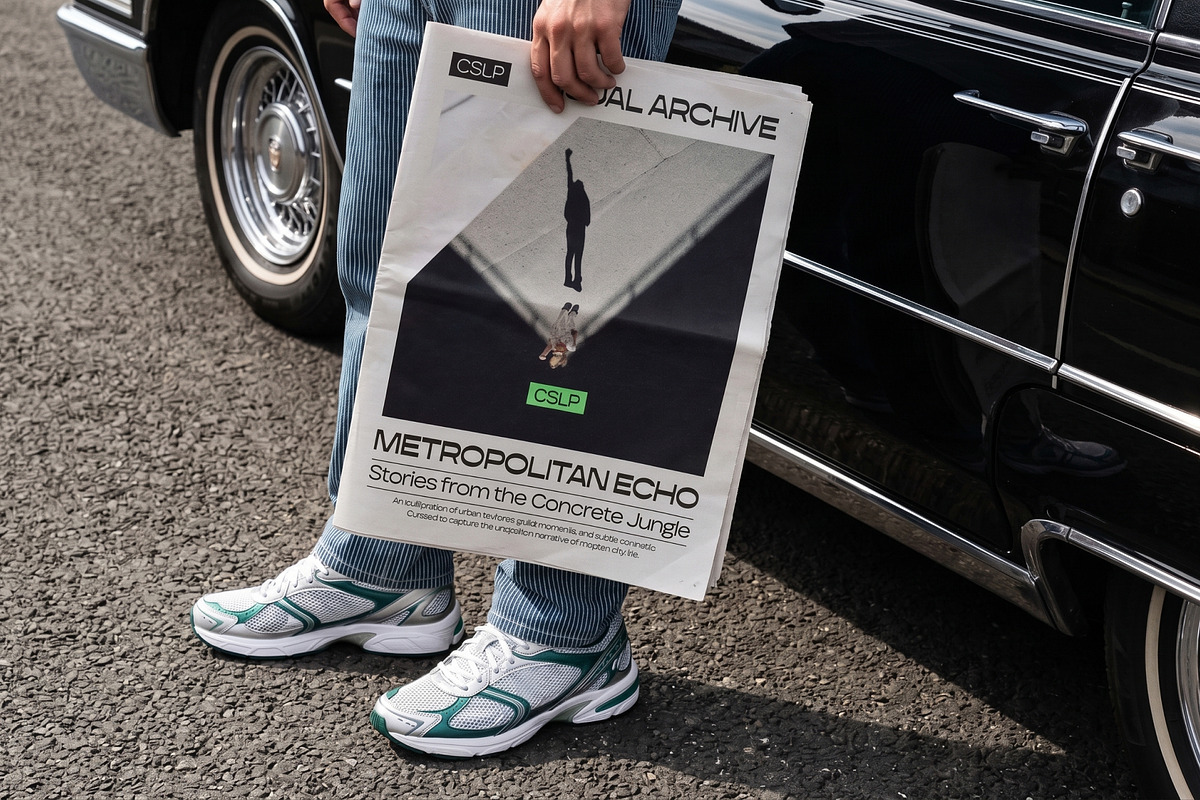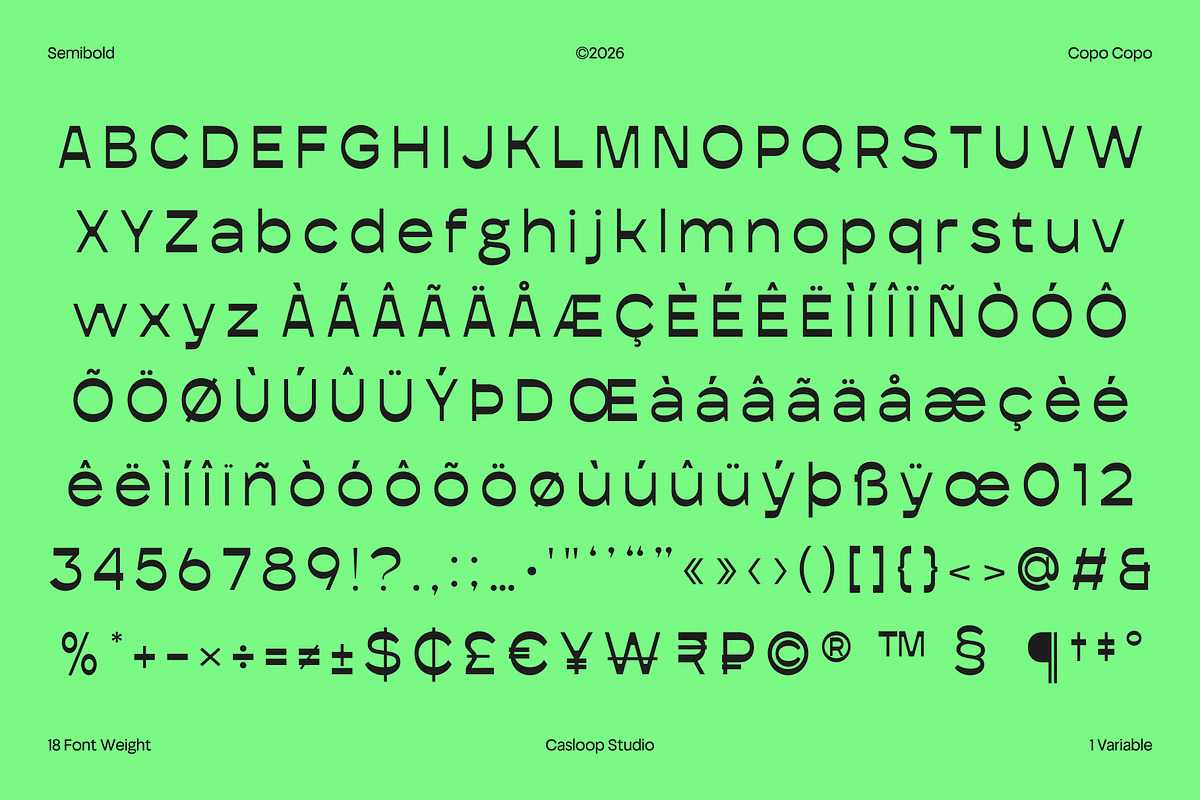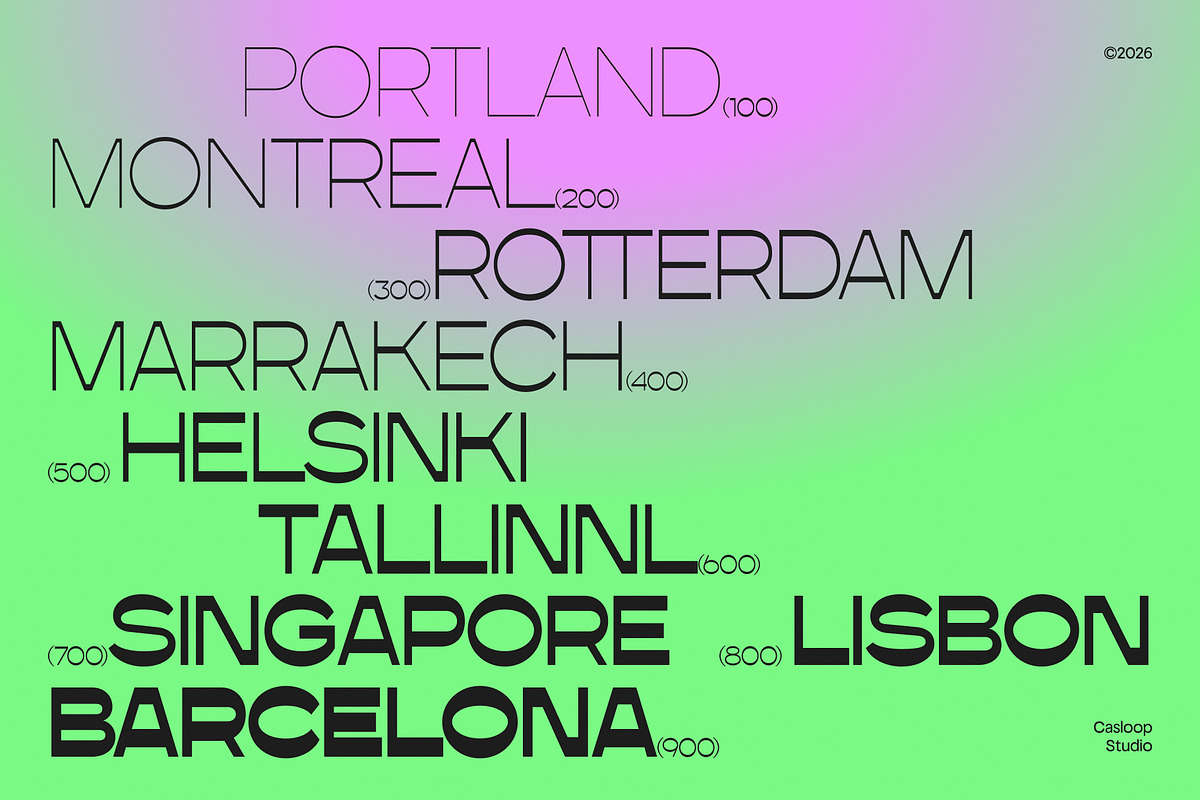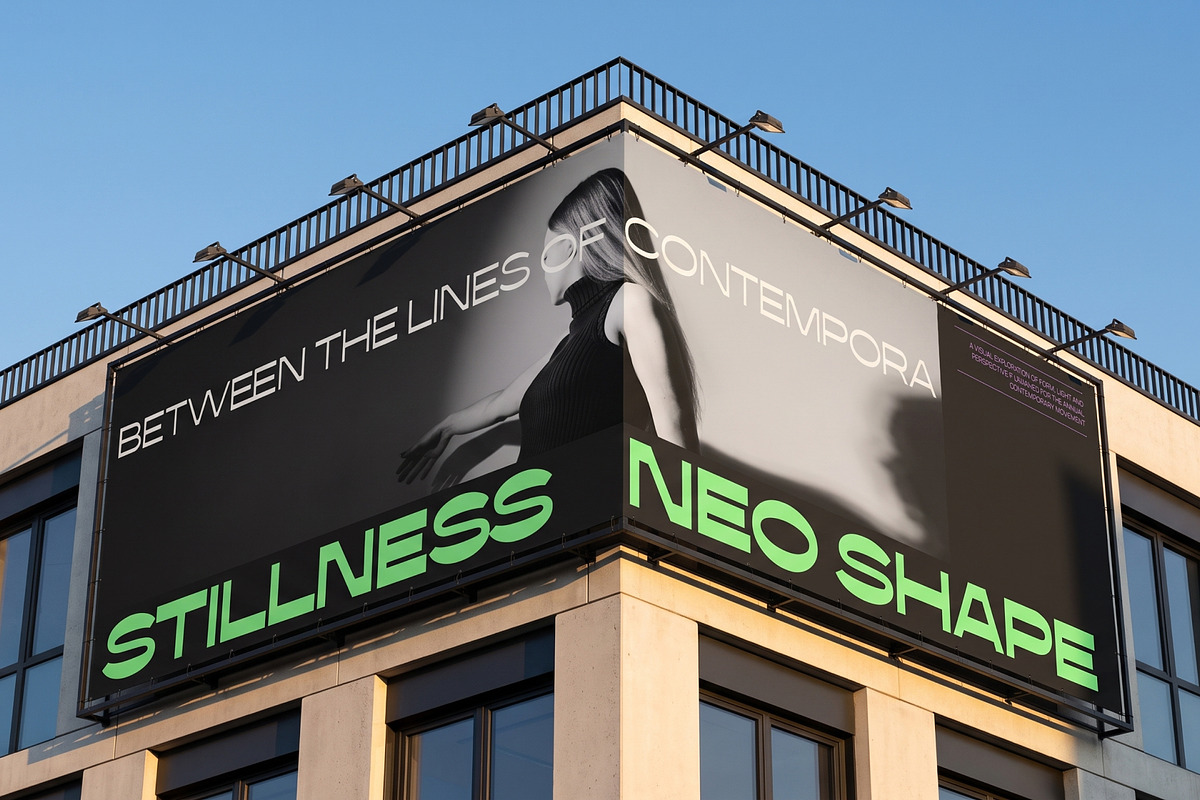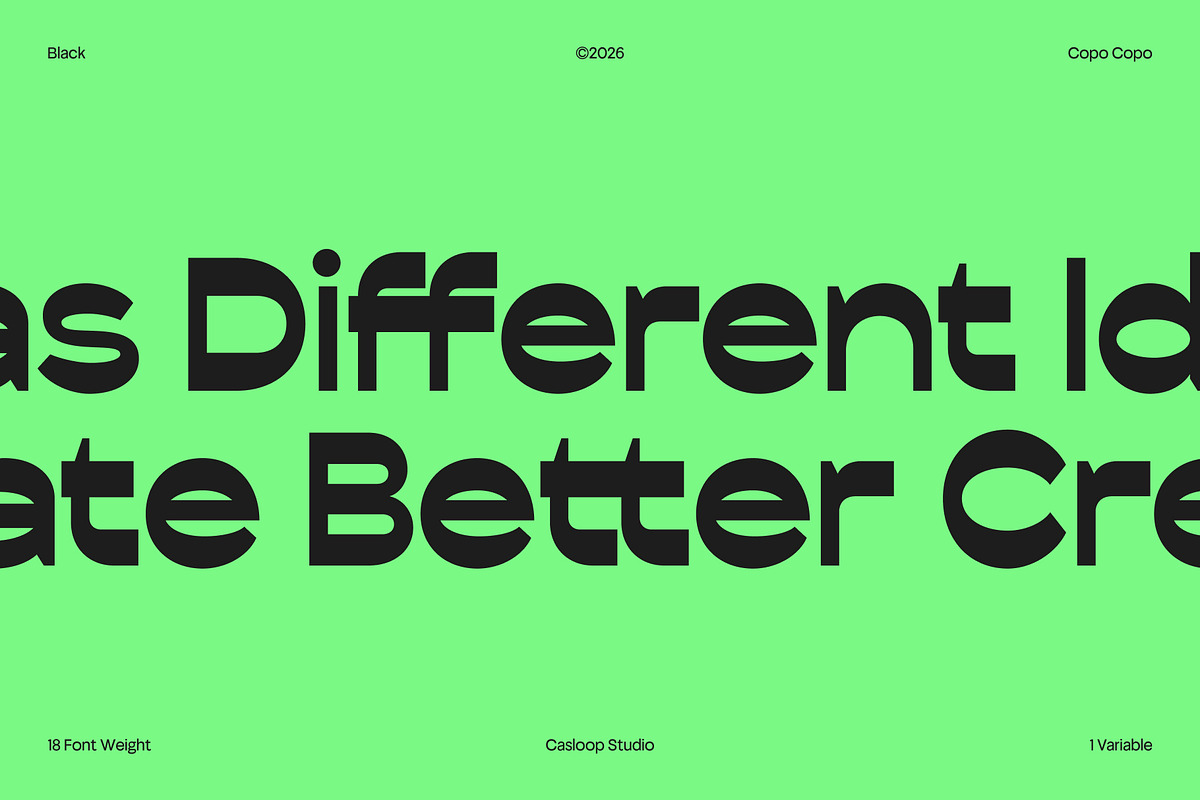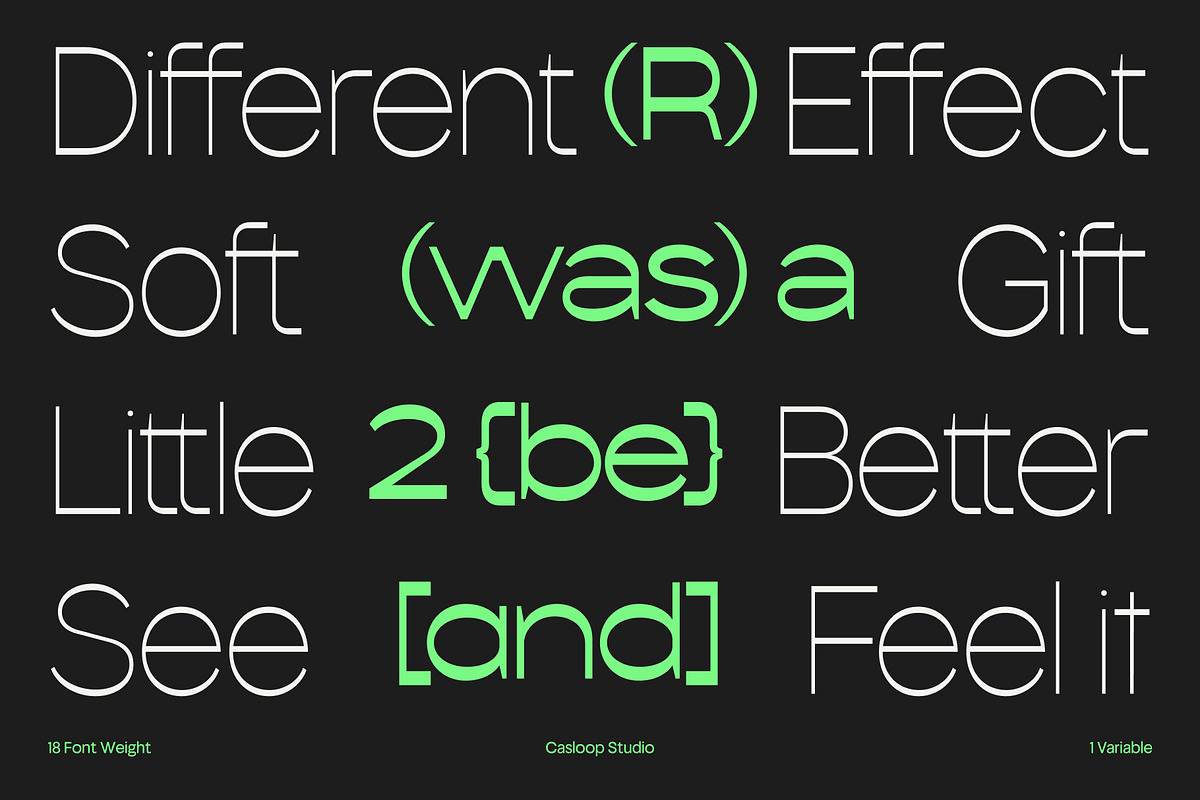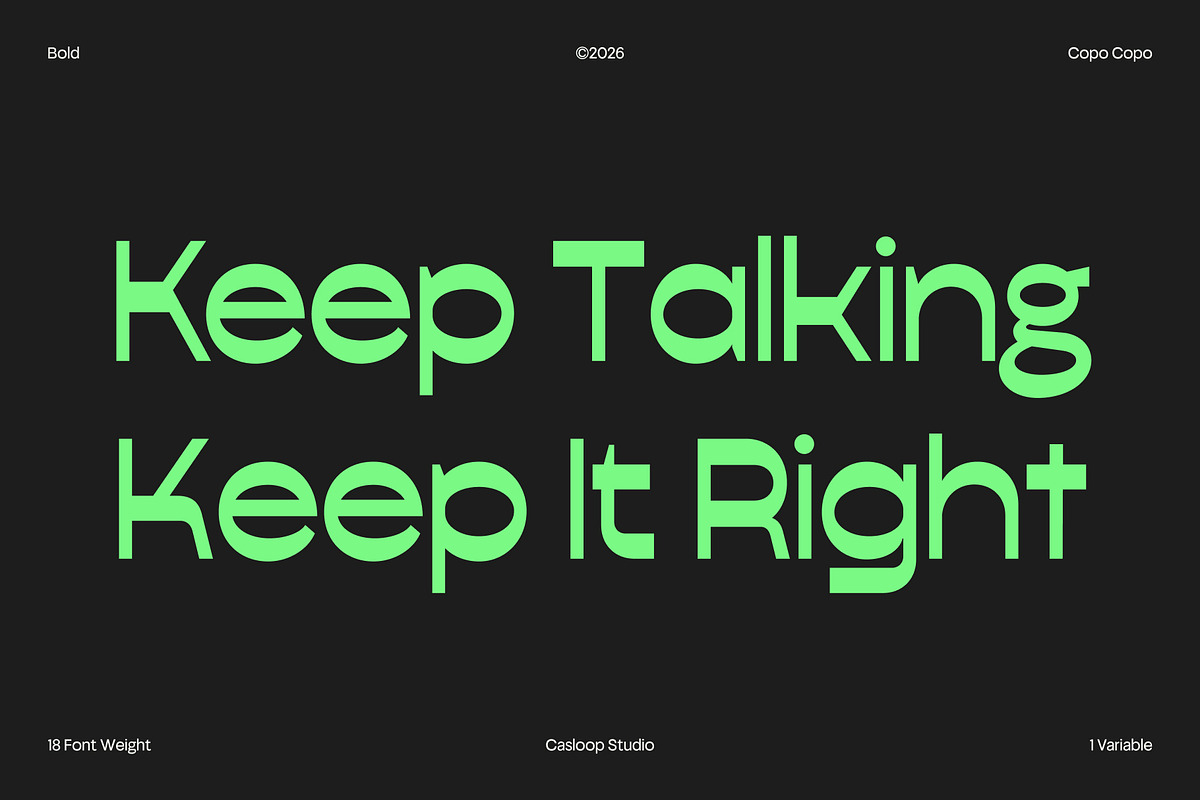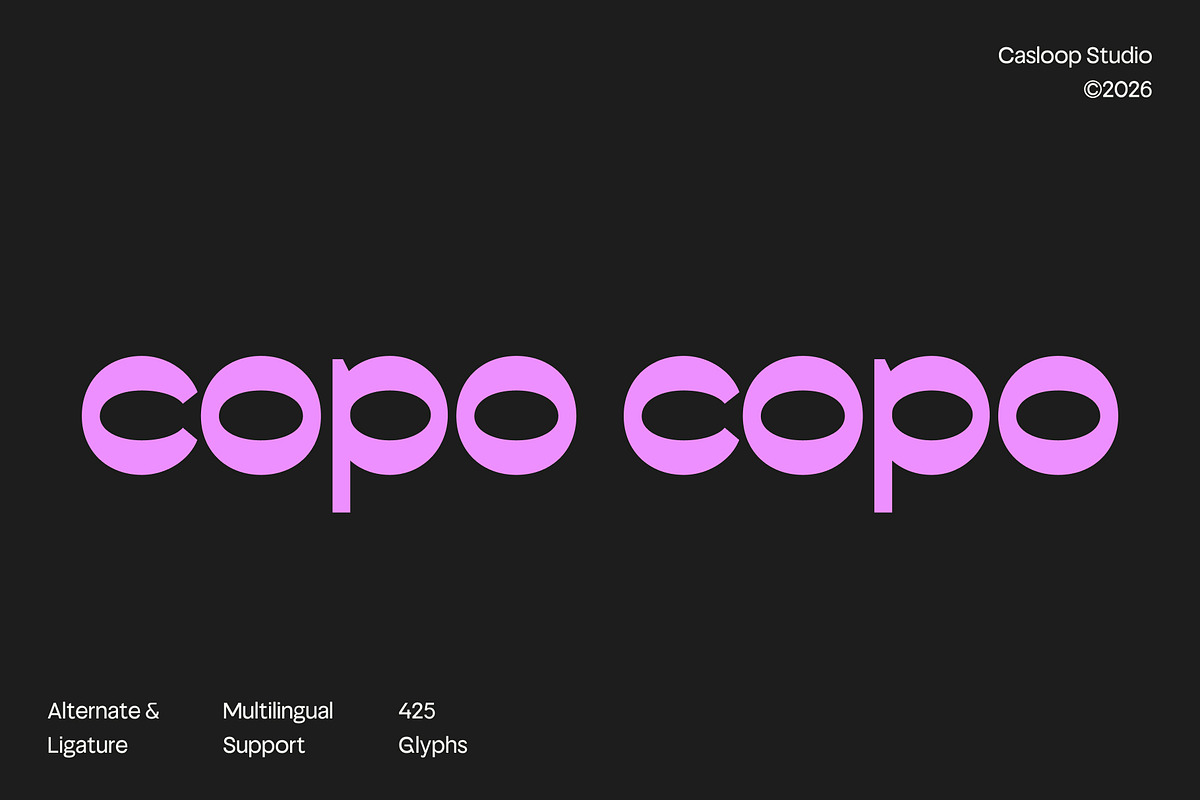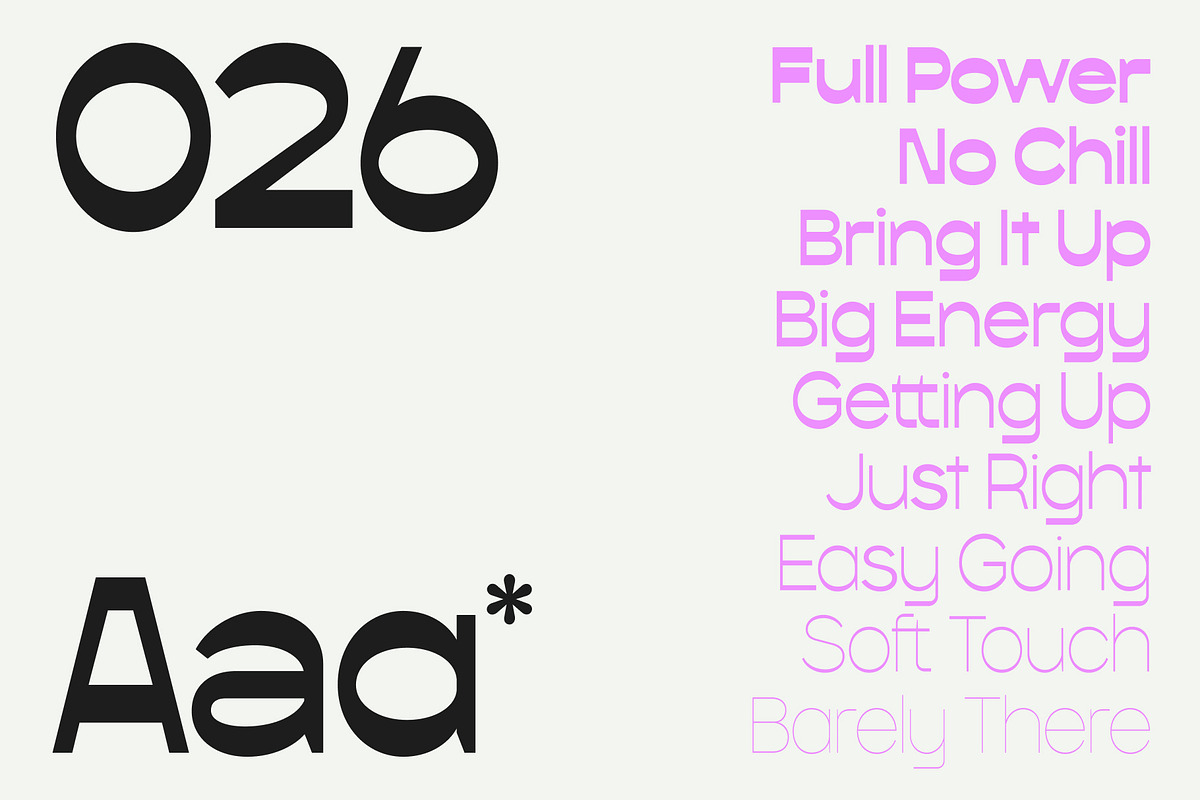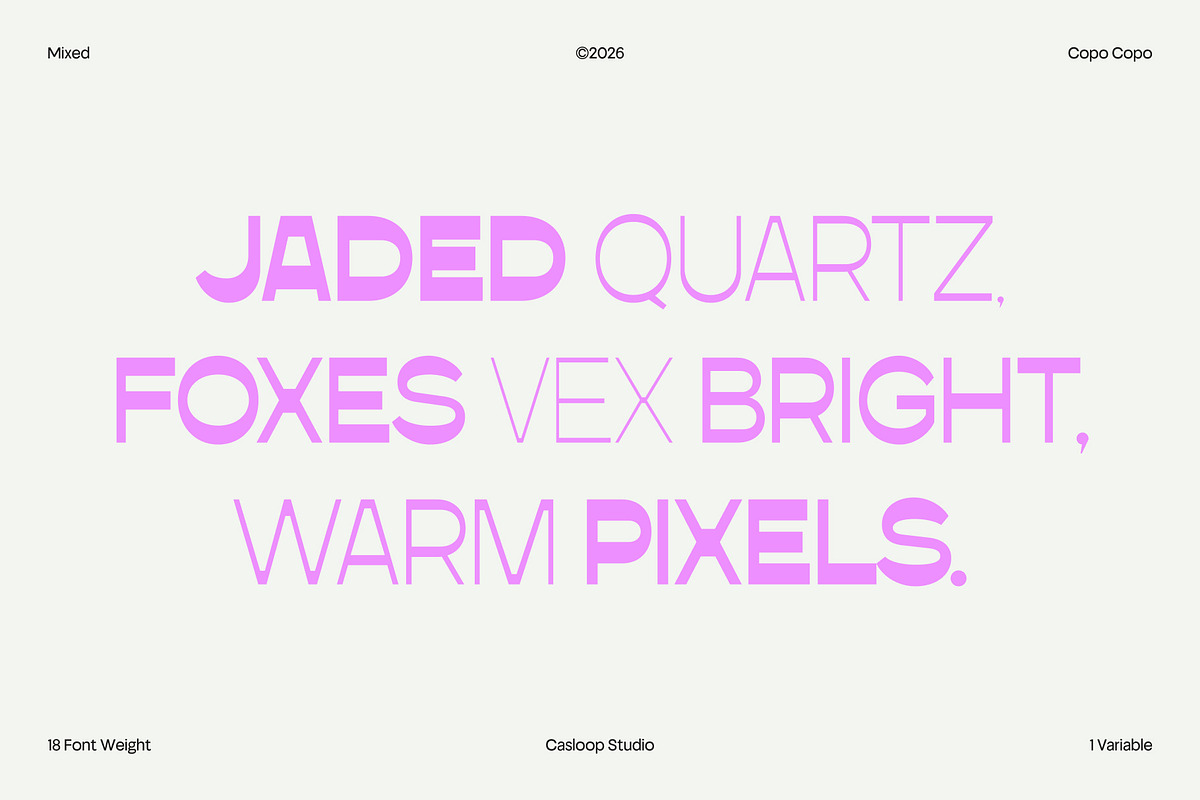
Copo Copo – Reversed Contrast
Copo Copo is a clean reversed contrast sans serif designed to bring a distinctive technical edge to modern corporate typography. Its defining characters Q, R, a, e, g, and S combine geometric construction with reversed contrast, shifting visual emphasis across the strokes to create a unique yet controlled appearance. Strong horizontal accents establish a precise, technical rhythm, while the extensive 18-weight system with Extended styles provides flexibility across scales and applications. Copo Copo is ideal for corporate branding, technology identities, display typography, digital products, and visual systems that require a clean foundation with an unconventional, forward-thinking character. Recommended pairing with: Inter, IBM Plex Sans, Space Grotesk, Helvetica Neue, Univers, DIN